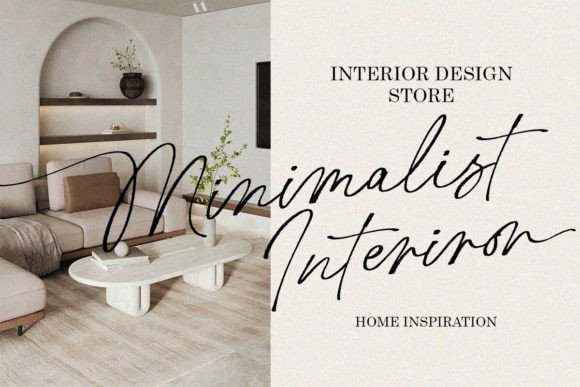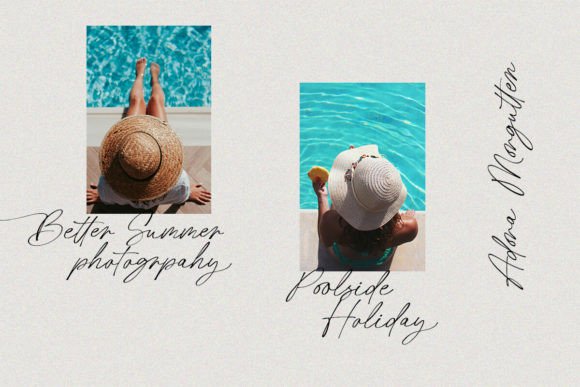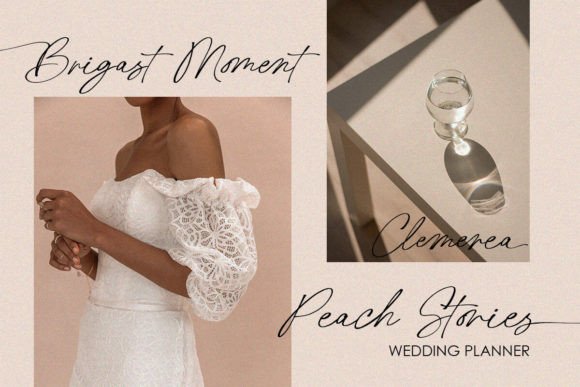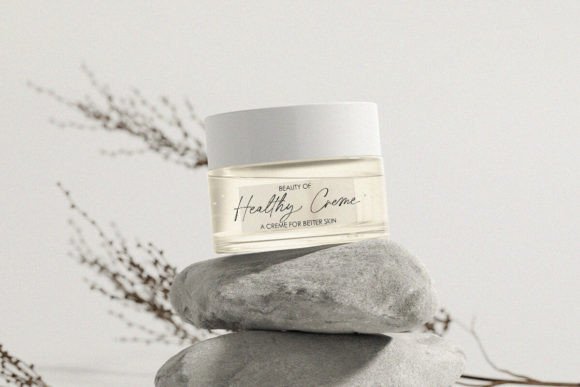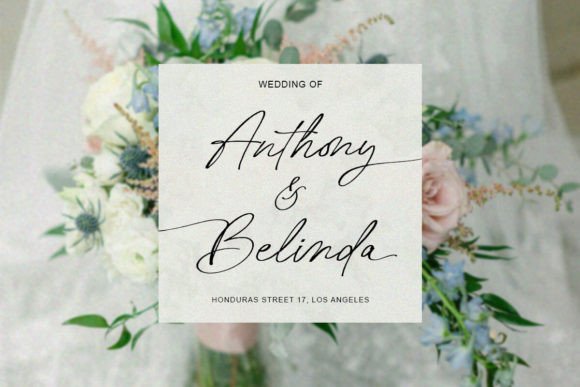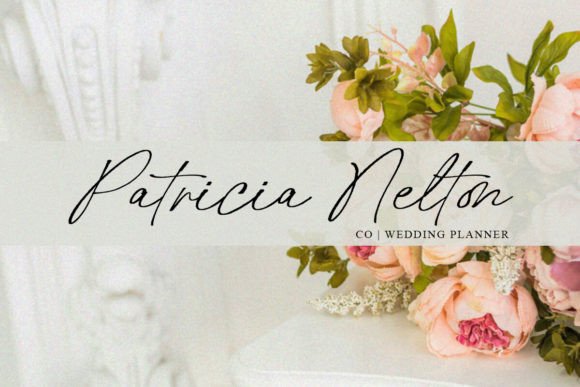
Introducing Adora Morgutten: The Ultimate Font for Modern Calligraphy
In the world of typography, few fonts have managed to strike a balance between traditional elegance and modern sophistication. Adora Morgutten is one such font that has captured the hearts of designers and crafters alike with its unique blend of fluid calligraphy and sleek aesthetic. In this article, we’ll dive into the world of Adora Morgutten, exploring its features, uses, and the creative possibilities it offers.
The Birth of Adora Morgutten
Adora Morgutten is a font masterpiece that brings together the best of traditional calligraphy and modern design. Its creator, with a passion for typography and calligraphy, has carefully crafted each stroke to exude a dynamic energy that is both captivating and expressive. The result is a font that is not only visually stunning but also highly versatile.
Key Features of Adora Morgutten
So, what makes Adora Morgutten stand out from the crowd? Here are some of its key features:
- Expressive Strokes: Adora Morgutten’s strokes are characterized by a fluidity that is reminiscent of traditional calligraphy. Each stroke is carefully crafted to convey a sense of movement and energy.
- Modern Aesthetic: While Adora Morgutten pays homage to traditional calligraphy, it also boasts a sleek and modern aesthetic that is perfect for contemporary design projects.
- Dynamic Energy: The font’s dynamic energy is palpable, making it perfect for designs that require a sense of movement and vitality.
Uses of Adora Morgutten
Adora Morgutten is a highly versatile font that can be used in a variety of design projects. Here are some of the ways you can use this beautiful font:
- Calligraphy Logos: Adora Morgutten is perfect for creating stunning calligraphy logos that require a touch of elegance and sophistication.
- Invitations: Whether it’s a wedding invitation or a birthday party invite, Adora Morgutten is the perfect font to add a touch of class and style.
- Display Products: From product packaging to billboards, Adora Morgutten is a great choice for display products that require a bold and eye-catching font.
- Wedding Design: Adora Morgutten is a popular choice for wedding designs, including wedding invitations, programs, and place cards.
- Social Media Graphics: The font’s modern aesthetic makes it perfect for social media graphics, including Instagram posts, Facebook covers, and Twitter headers.
Why Designers and Crafters Love Adora Morgutten
So, why have designers and crafters fallen in love with Adora Morgutten? Here are a few reasons:
- Unique Blend of Style and Elegance: Adora Morgutten offers a unique blend of style and elegance that is hard to find in other fonts.
- Highly Versatile: The font’s versatility makes it perfect for a wide range of design projects, from calligraphy logos to social media graphics.
- Easy to Read: Despite its elegant and cursive nature, Adora Morgutten is surprisingly easy to read, making it perfect for designs that require a touch of sophistication.
Tips for Using Adora Morgutten
Here are a few tips for using Adora Morgutten in your design projects:
- Experiment with Different Sizes: Adora Morgutten looks great in a variety of sizes, from large display fonts to smaller body text.
- Pair with Other Fonts: Don’t be afraid to pair Adora Morgutten with other fonts to create a unique and visually appealing design.
- Use it Sparingly: While Adora Morgutten is a beautiful font, it can be overwhelming if used too much. Use it sparingly to create a sense of drama and impact.
In conclusion, Adora Morgutten is a font masterpiece that offers a unique blend of traditional elegance and modern sophistication. Its expressive strokes, dynamic energy, and versatility make it perfect for a wide range of design projects, from calligraphy logos to social media graphics. Whether you’re a designer or crafter, Adora Morgutten is a font that’s sure to inspire and elevate your designs.